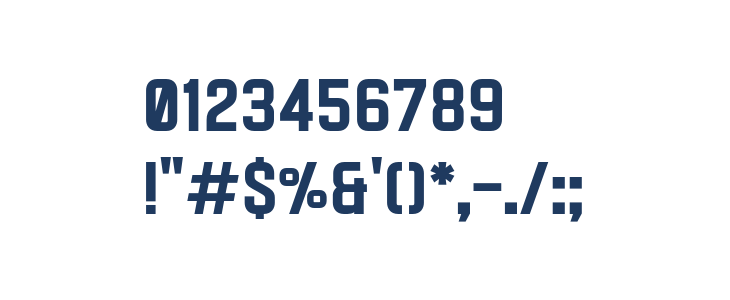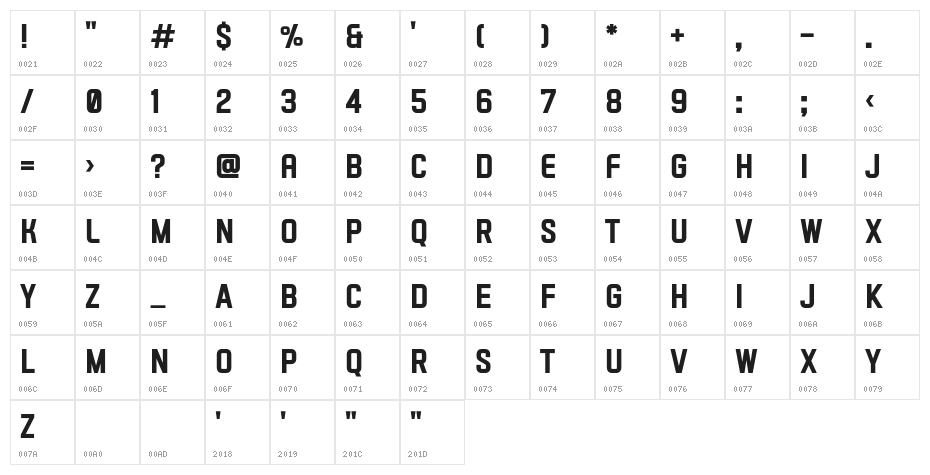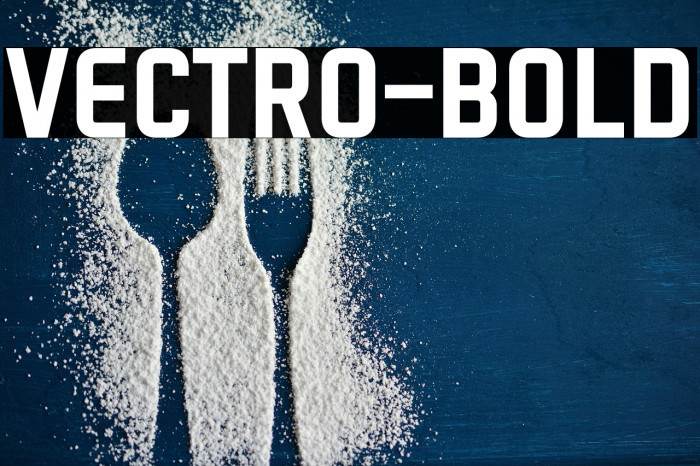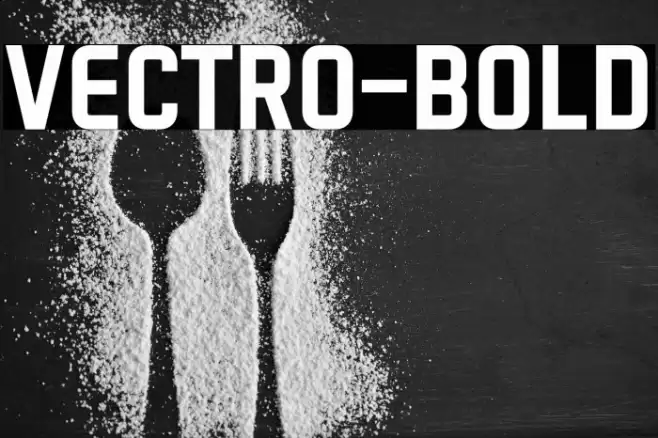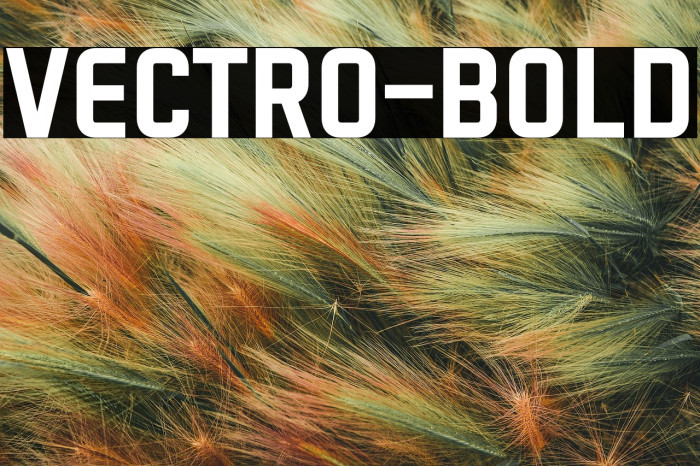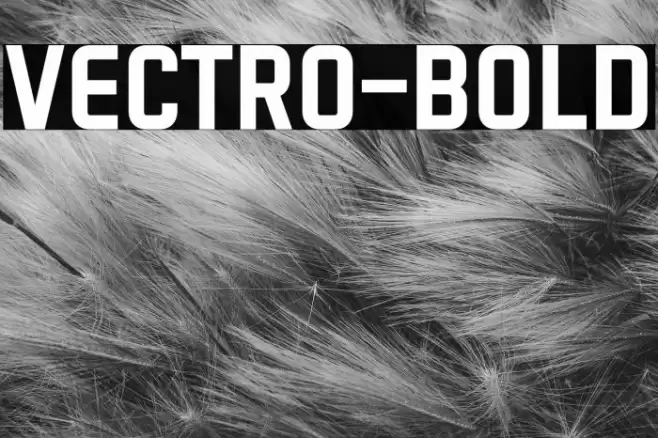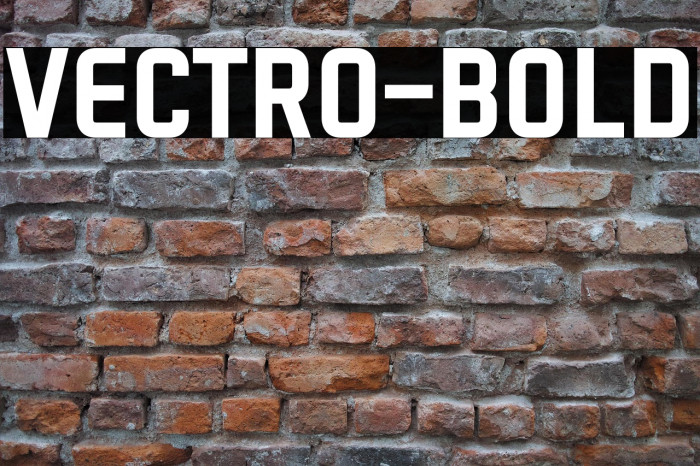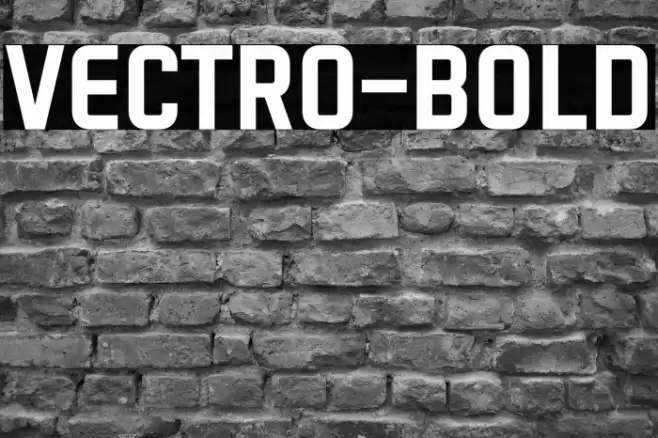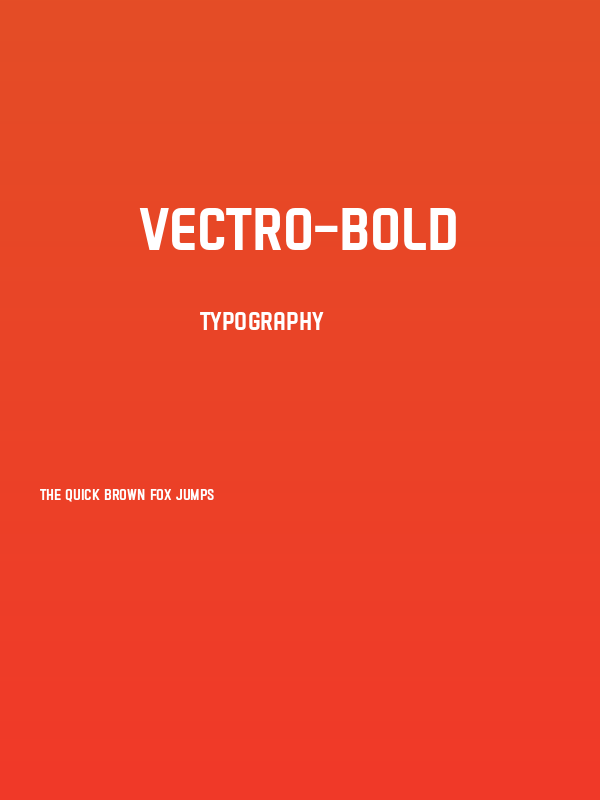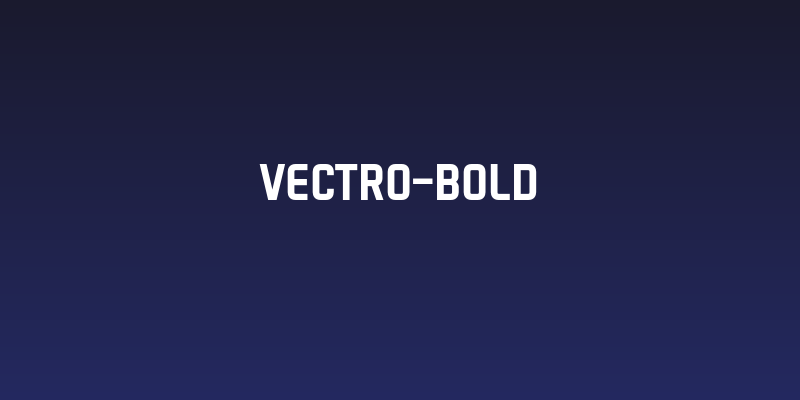
VECTRO-Bold Font
VECTRO-Bold Description
This font features a bold and robust design, characterized by its strong geometric shapes and uniform stroke widths. The uppercase letters are particularly striking, with a modern and industrial feel that conveys strength and stability. The numerals and special characters maintain this bold aesthetic, ensuring consistency across all glyphs. The font's clean lines and lack of serifs contribute to its contemporary appearance, making it highly legible and impactful.
| Proposed Projects | Ideal for branding, headlines, posters, and signage where a strong, modern impact is desired. |